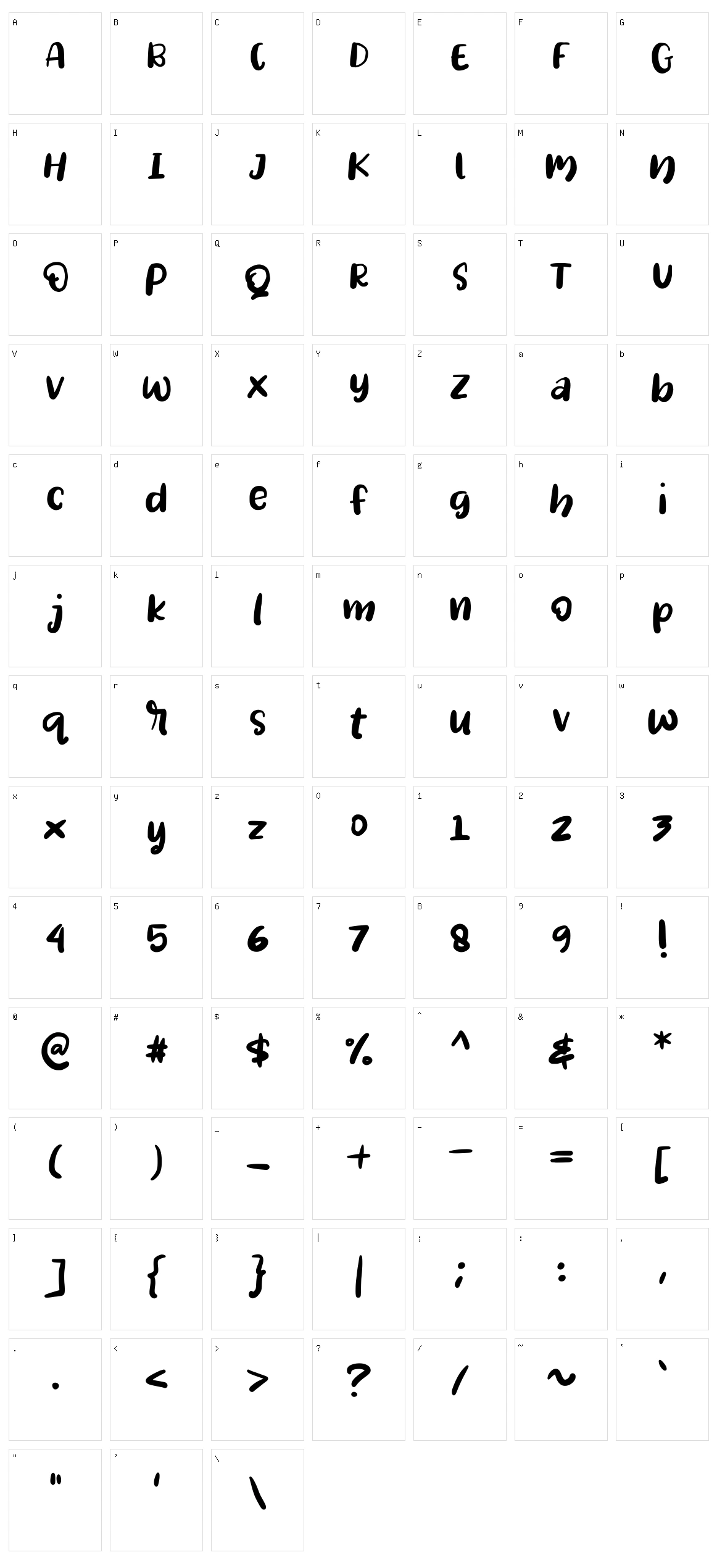
The free font Monkey Rocket is carefully designed by Pustudio, showcasing a thoughtful balance of creativity and usability and falls under the Cartoon font style. When you download the ZIP file, it contains only 41.03 KB of font files, making it lightweight and quick to download. Please review the license details below to understand permitted usage and distribution rights. If license information is not available, we recommend using this font for personal projects only or contacting the author directly for commercial usage permissions.